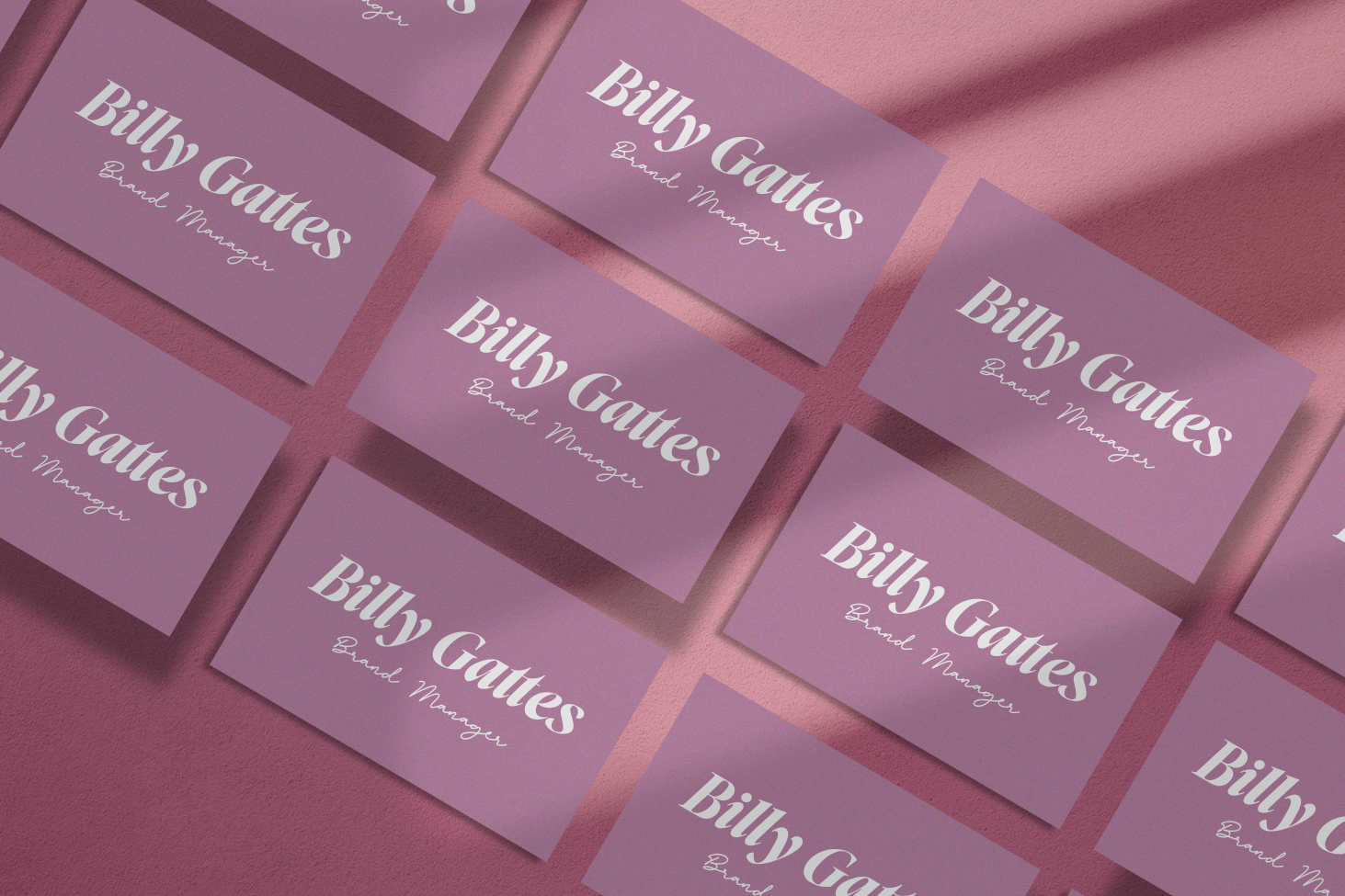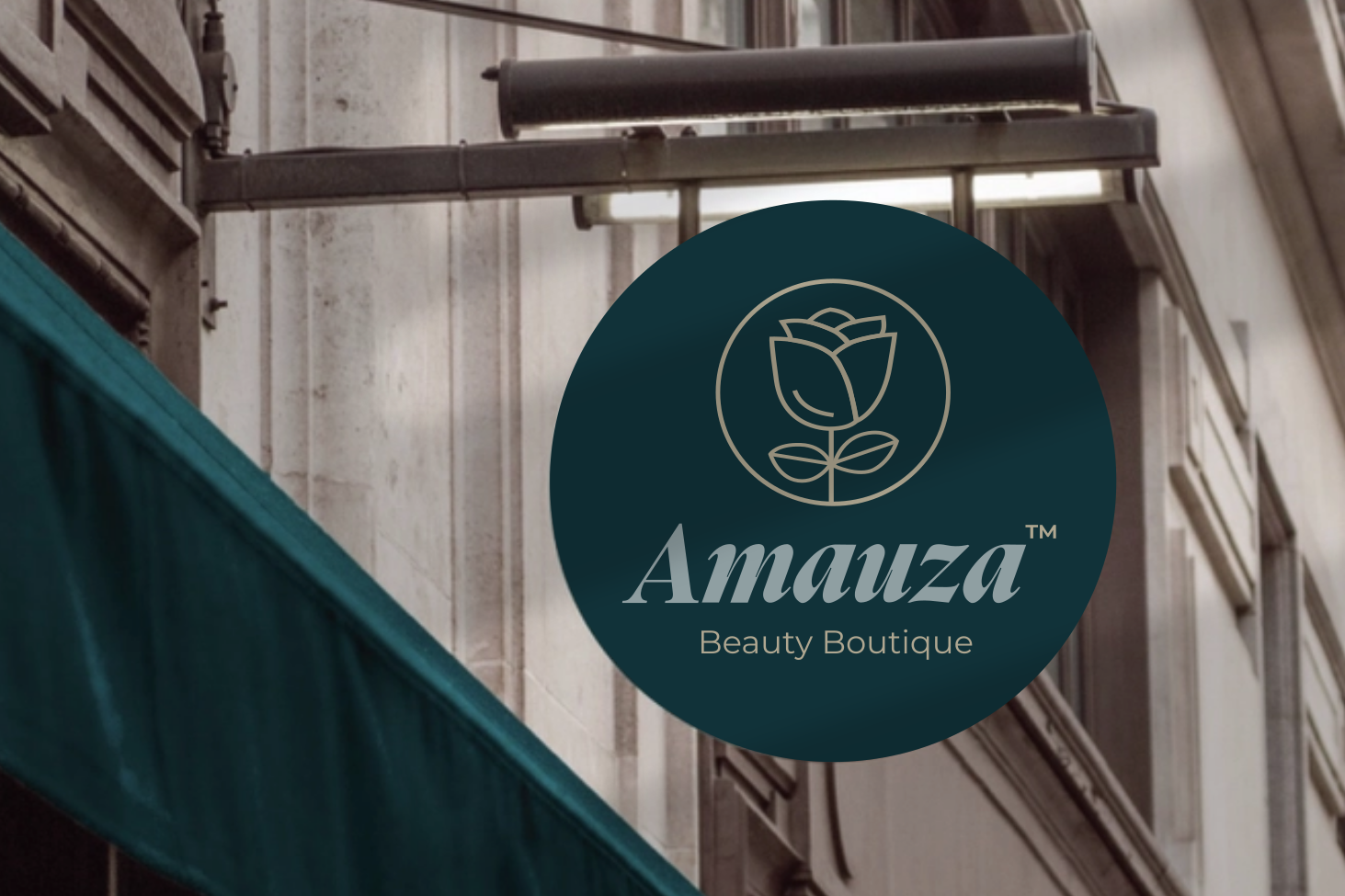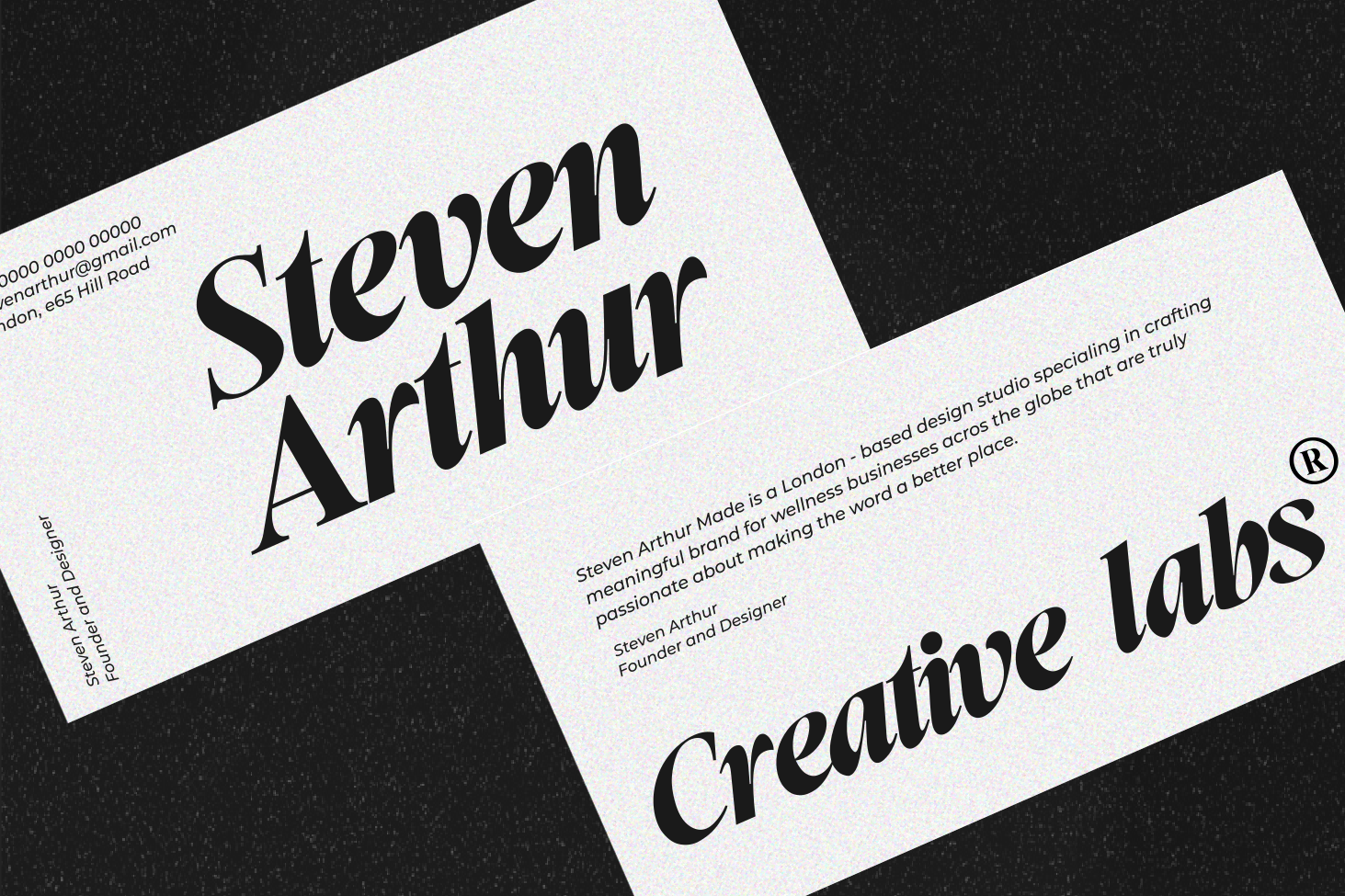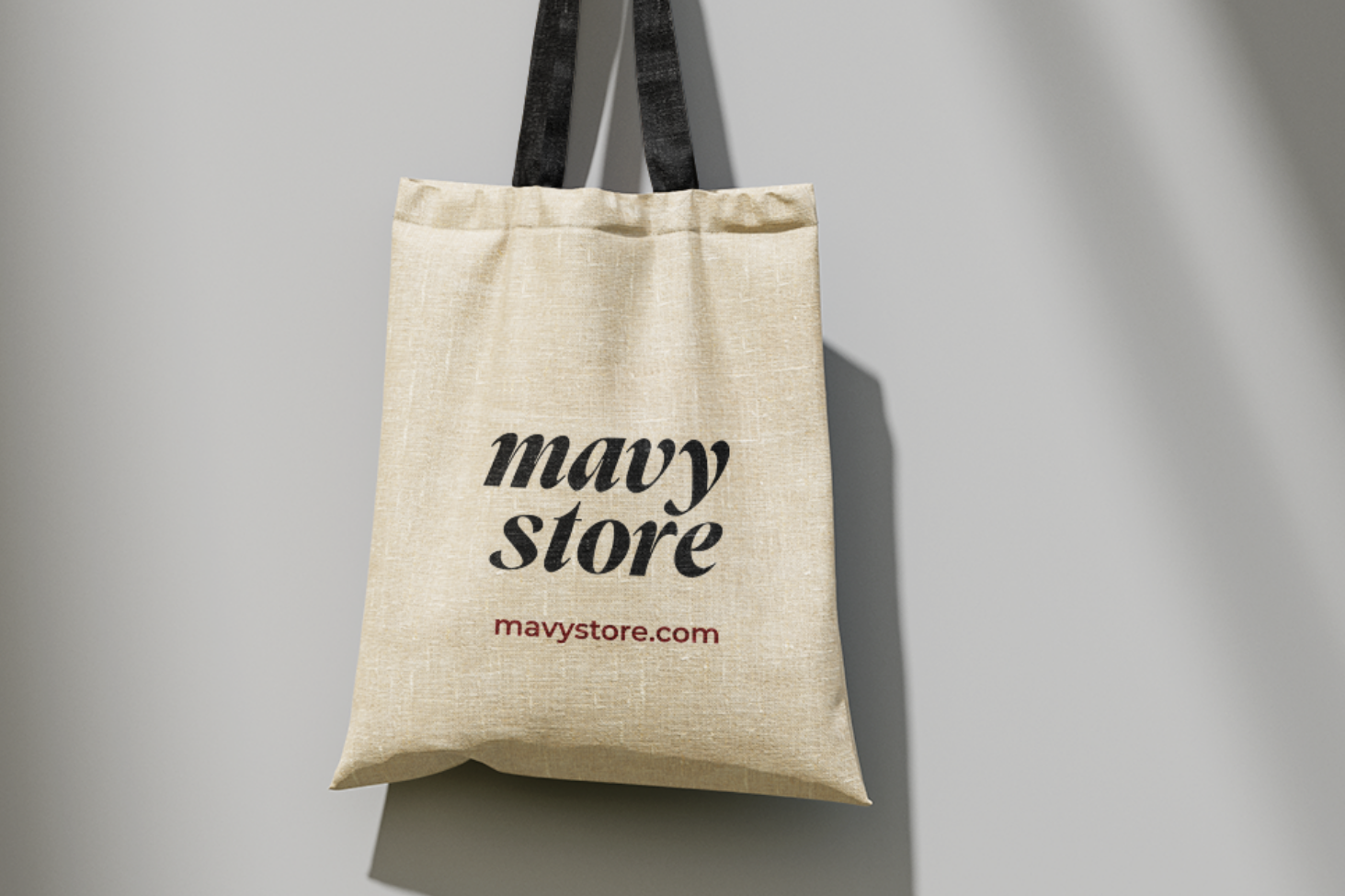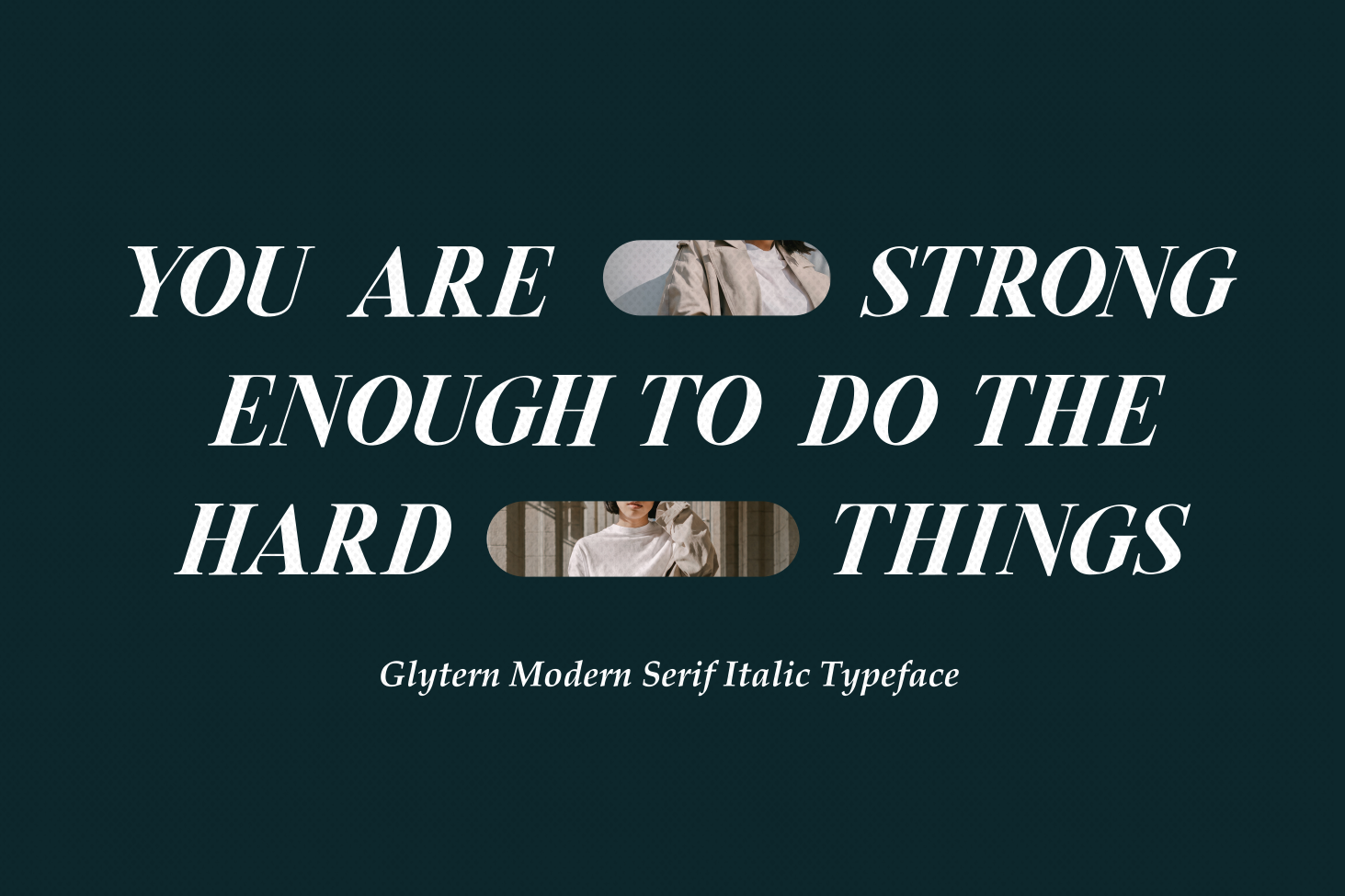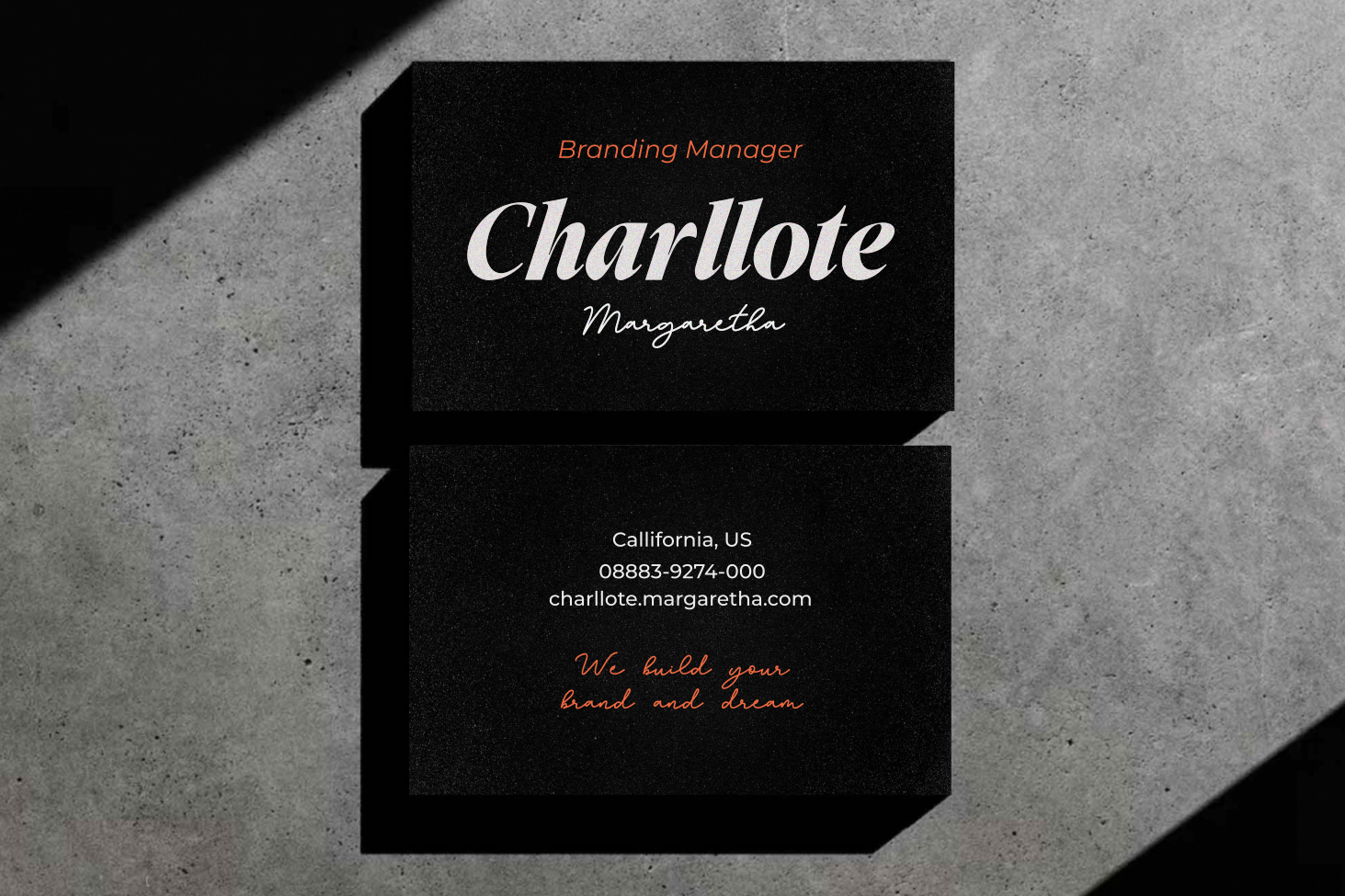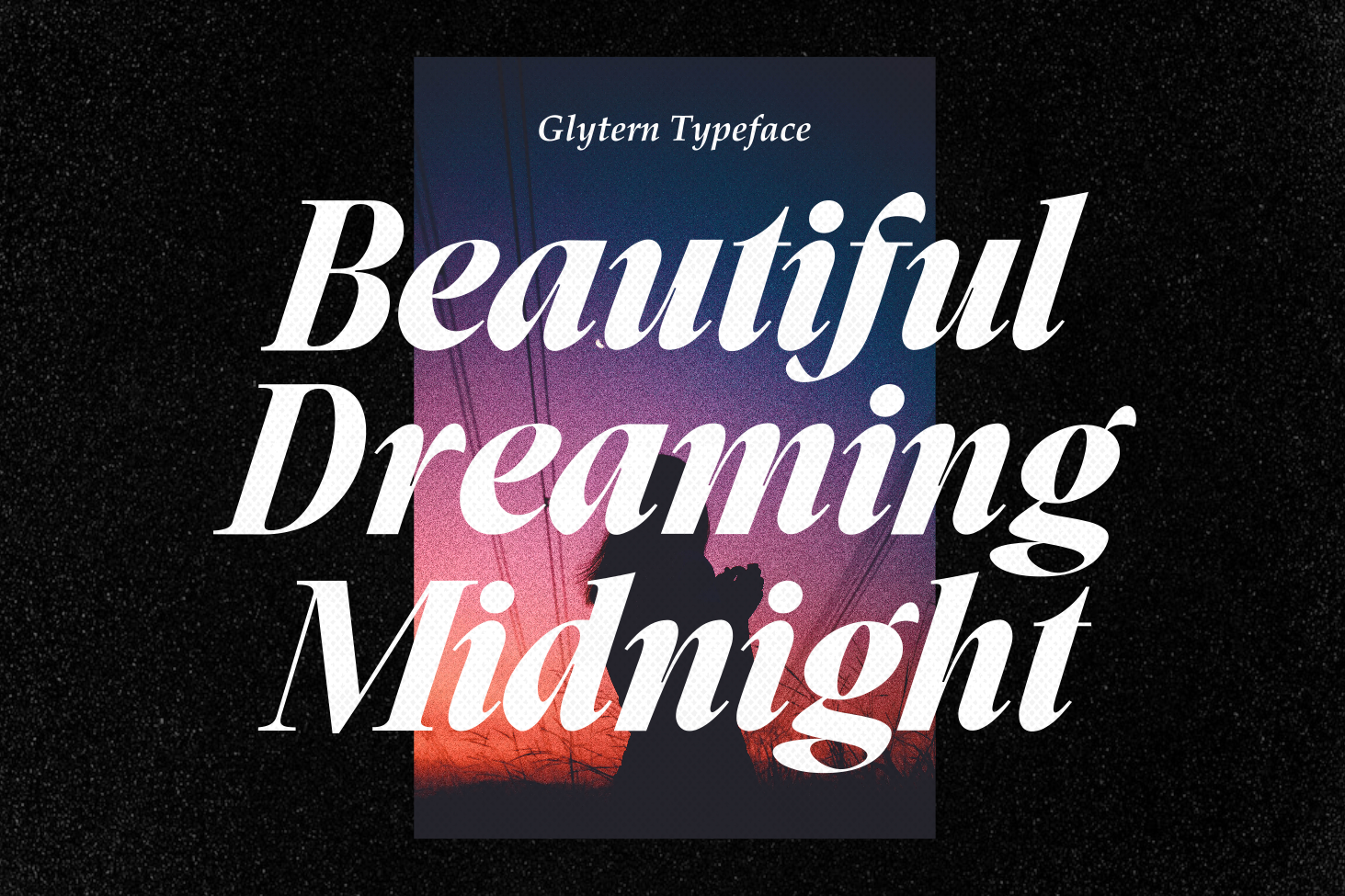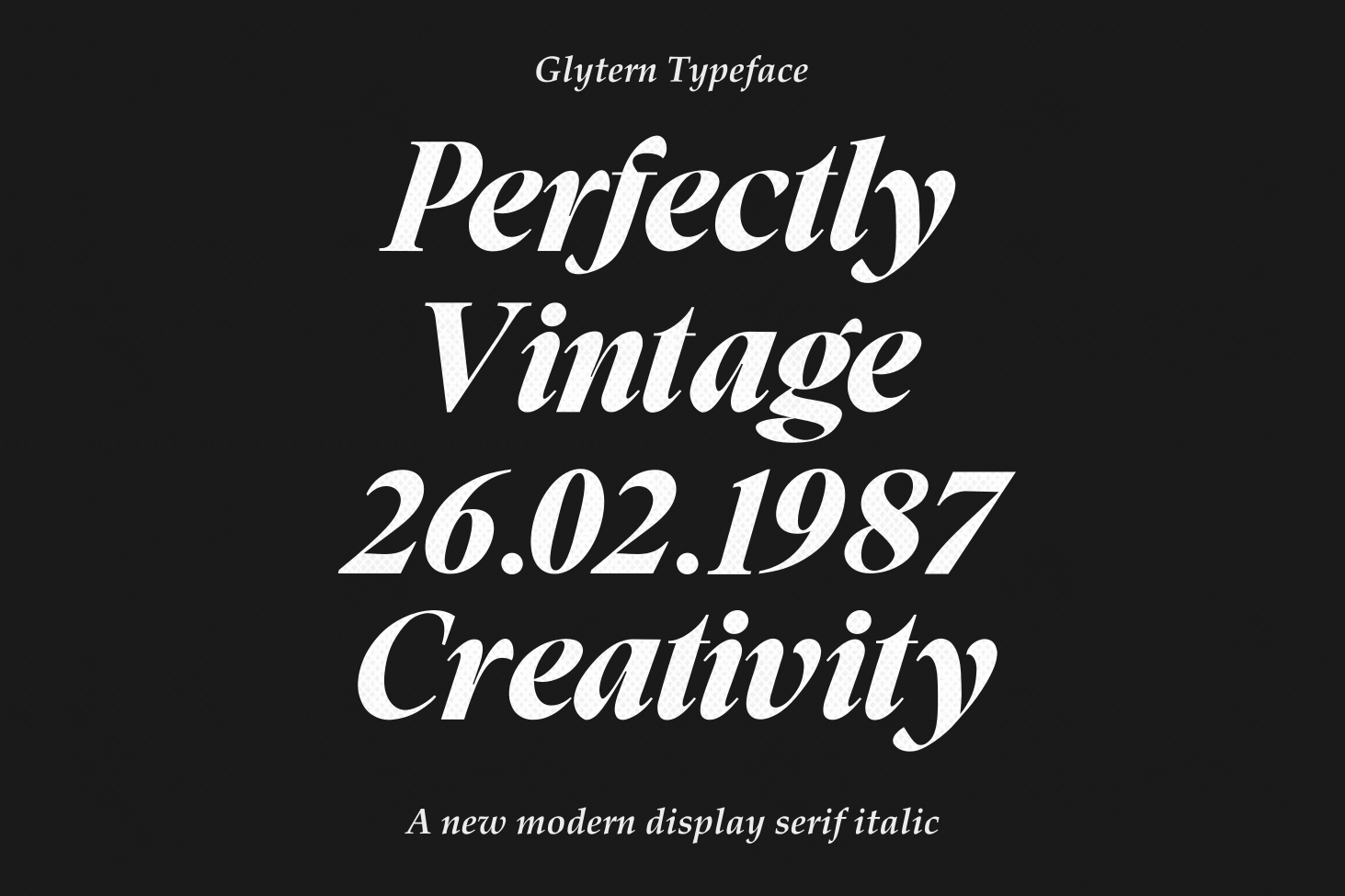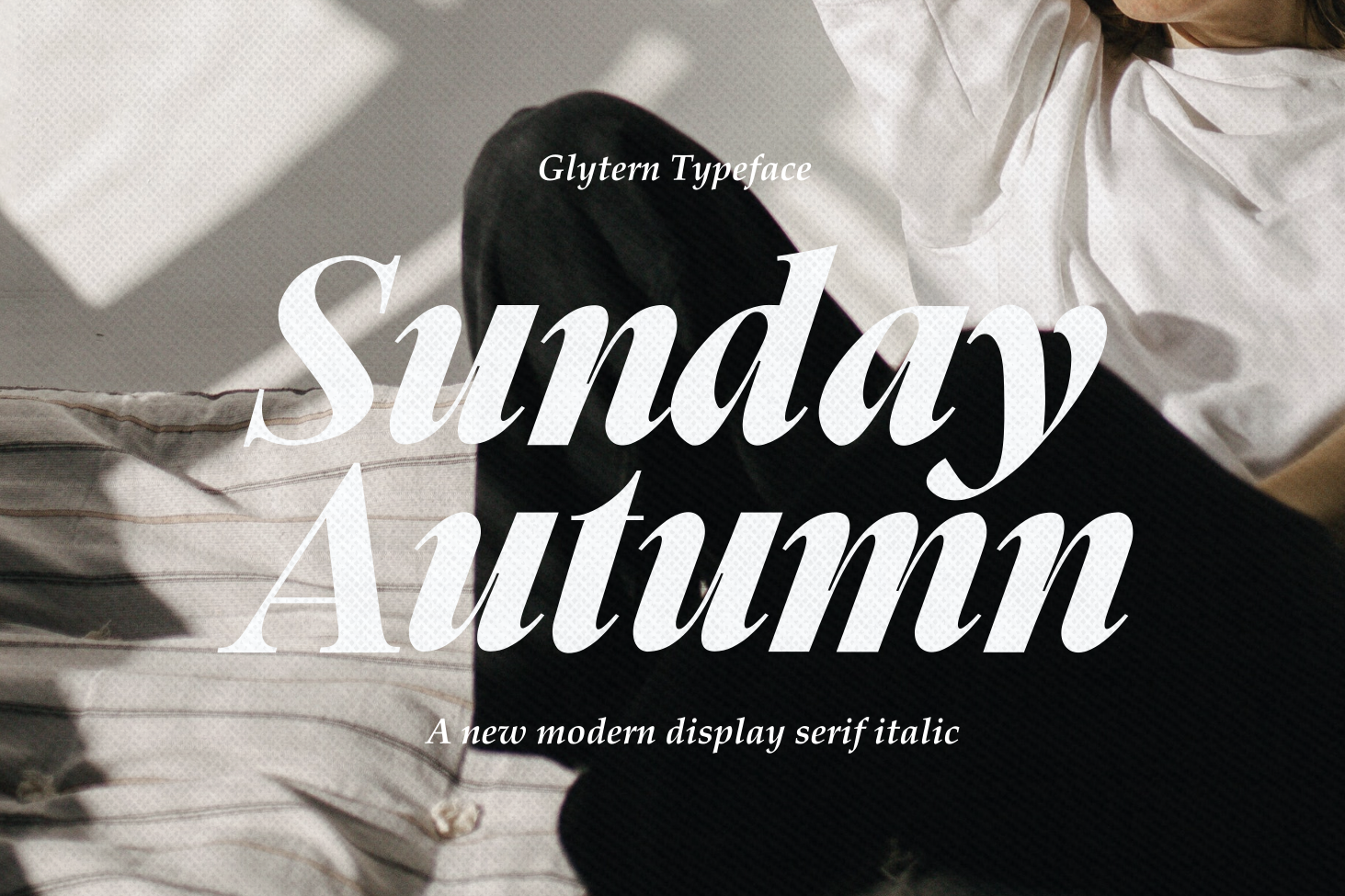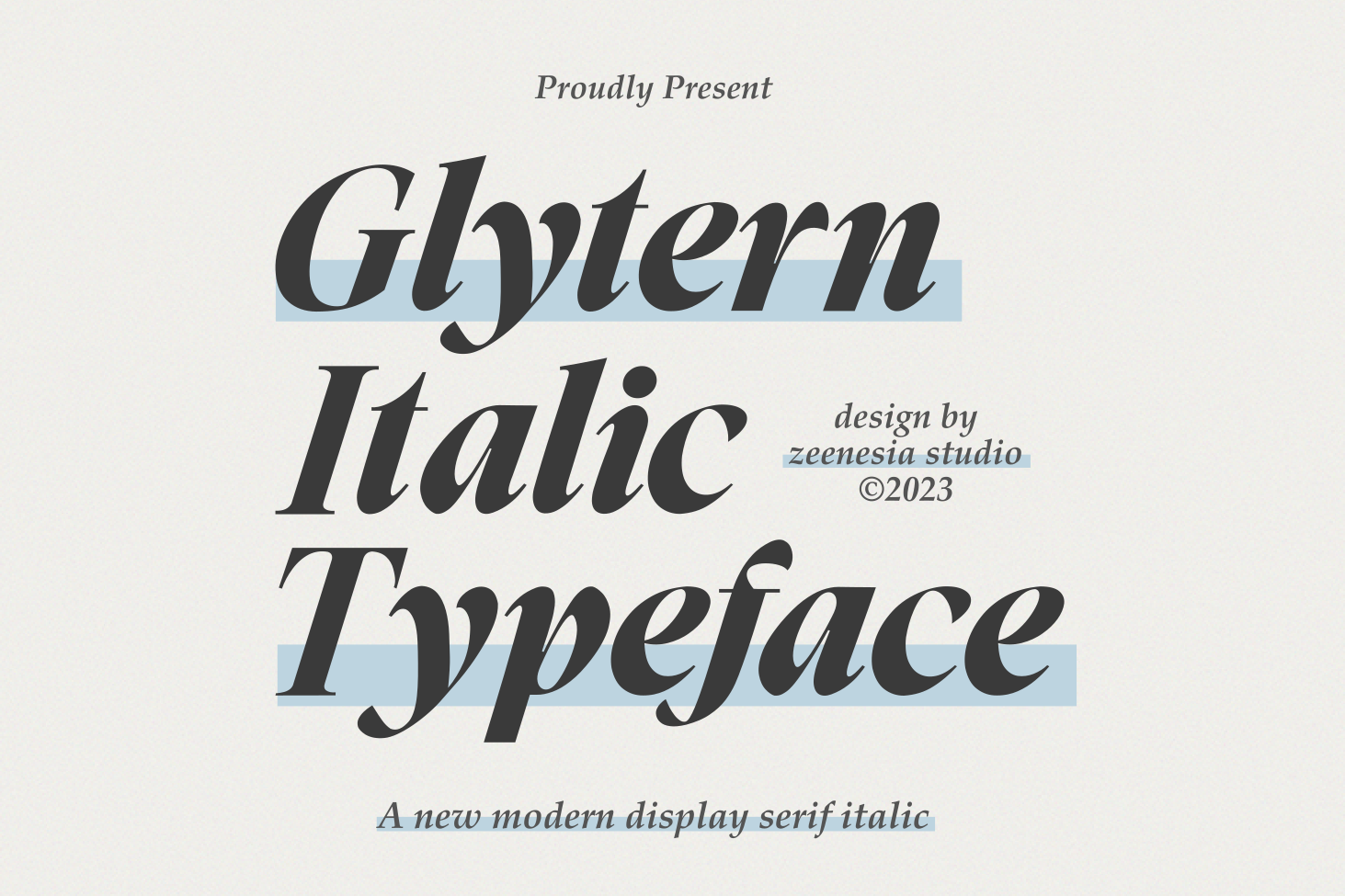
Gytern
Hello my new font was present. Glytern by zeenesia
Glytern is a modern italic serif font. It’s a very versatile font that works great in large.
Glytern Perfect for editorial projects, Logo design, web font, branding, product packaging, magazine , or simply as a stylish text overlay to any background image.